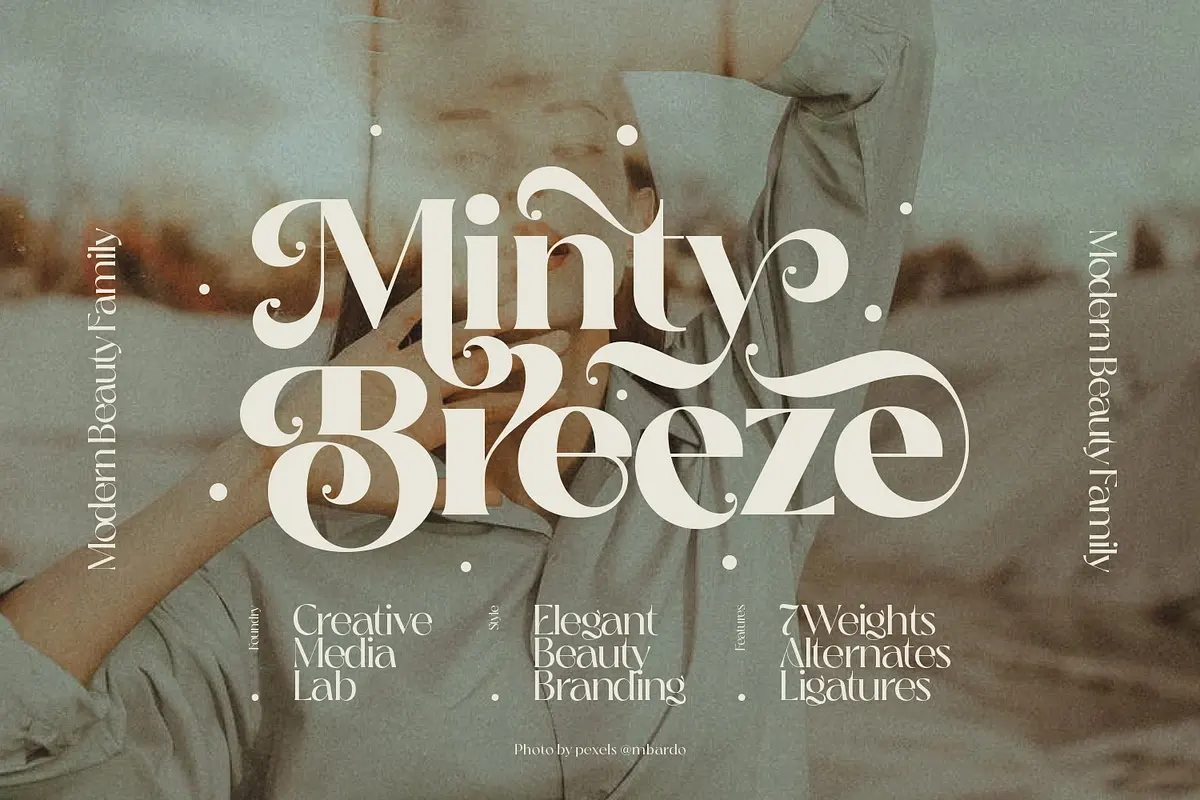
Minty Breeze - Modern Retro Font Free Download
Minty Breeze Modern Retro Font Free Download
Minty Breeze Modern Retro Font Free Download is a vibrant, playful typeface that blends a nostalgic retro aesthetic with a contemporary twist. With its smooth curves, bold letterforms, and vibrant energy, this font is perfect for logos, branding, posters, social media graphics, and anything that needs a fresh yet vintage vibe.
Whether you’re creating a retro-inspired brand, designing event posters, or adding flair to a product label, Minty Breeze brings a fun, bold touch to your typography. It’s the ideal font for designers looking to capture the spirit of the past with a modern feel.